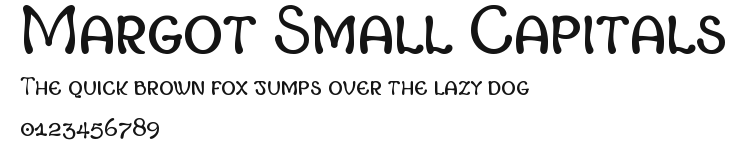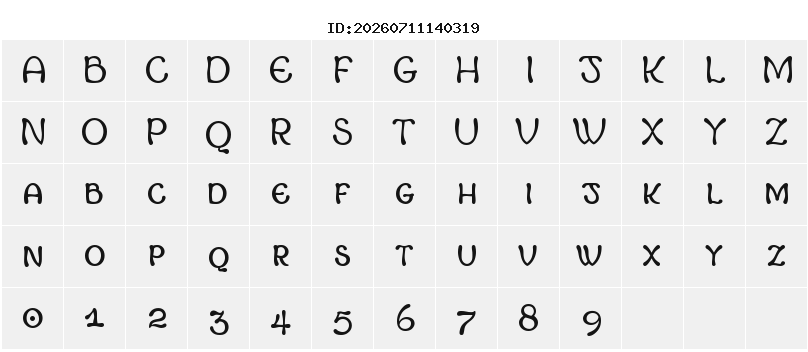
Margot Small Capitals Preview
• Font Name: Margot Small Capitals
• Font ID: Margot Small Capitals:Version 1.00
• Full Font Name: Margot Small Capitals
• Version: Version 1.00 February 3, 2013, initial release
• PostScript Name: MargotSmallCapitals
• Designer: Lauren Thompson
• Description: :D
About Margot Small Capitals.ttf
Margot Small Capitals.ttf is a modern, elegant sans-serif font designed for ultimate readability and visual harmony. Perfect for branding, headlines, web design, and print materials.